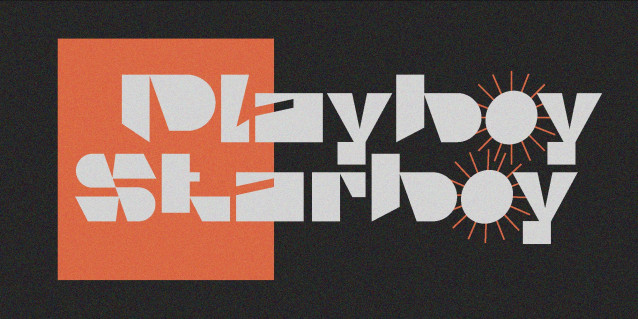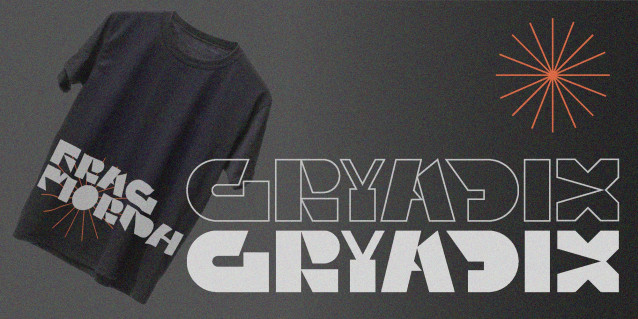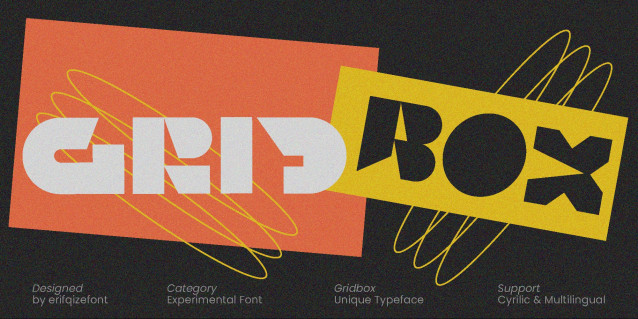
Gridbox Font
Gridbox Font is an experimental typeface that stands out with bold and distinctive characters. Designed with a unique approach, each glyph carries a strong, unconventional personality, blending sharp geometry with innovative form. The result is a modern, edgy font perfect for projects that demand visual impact and originality.